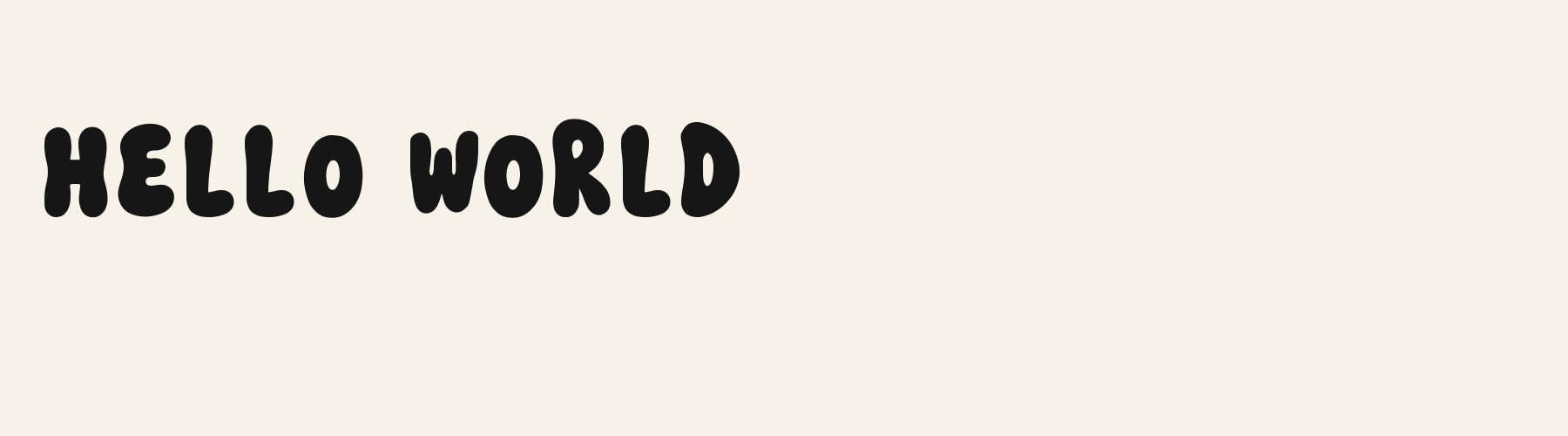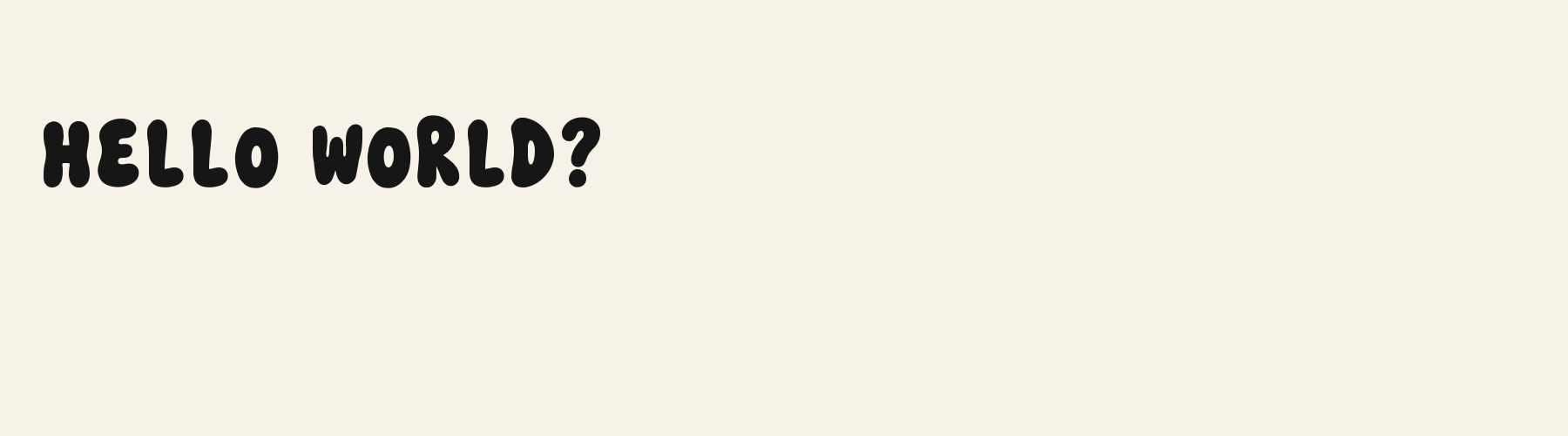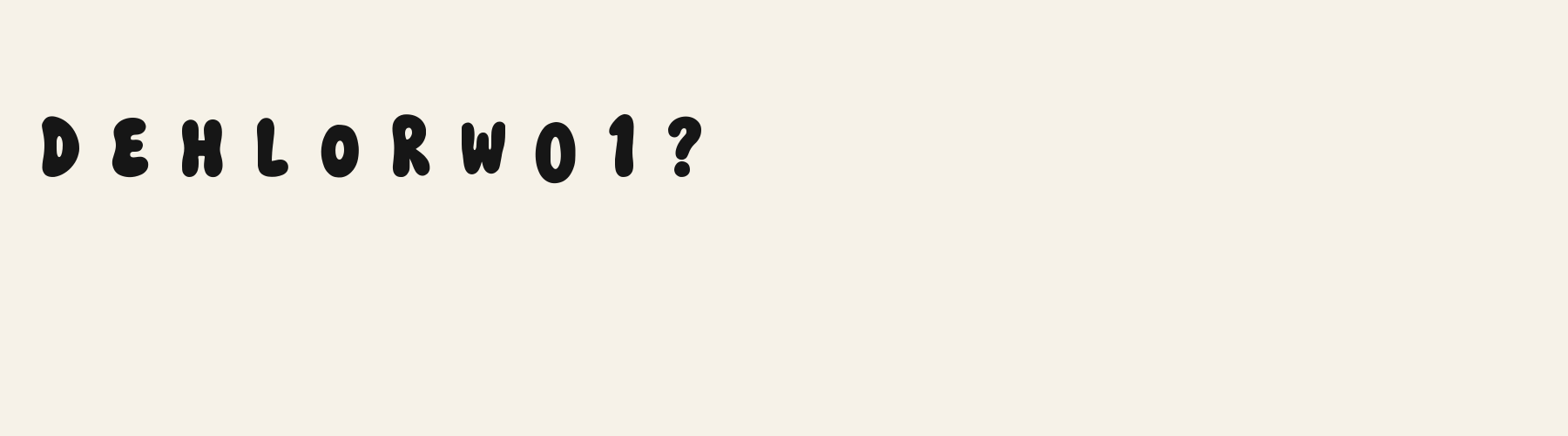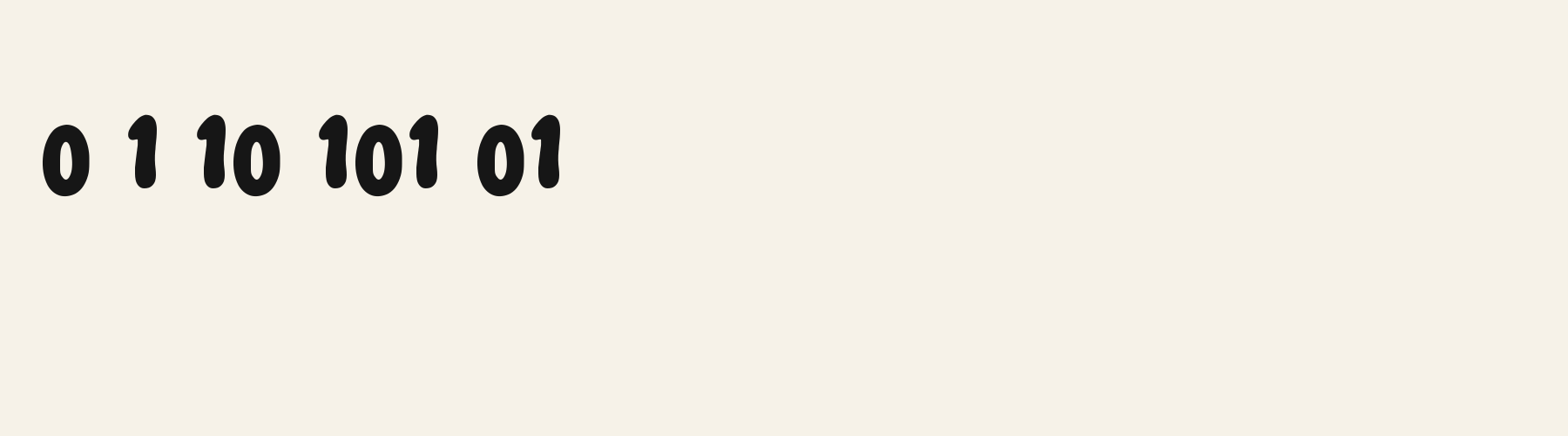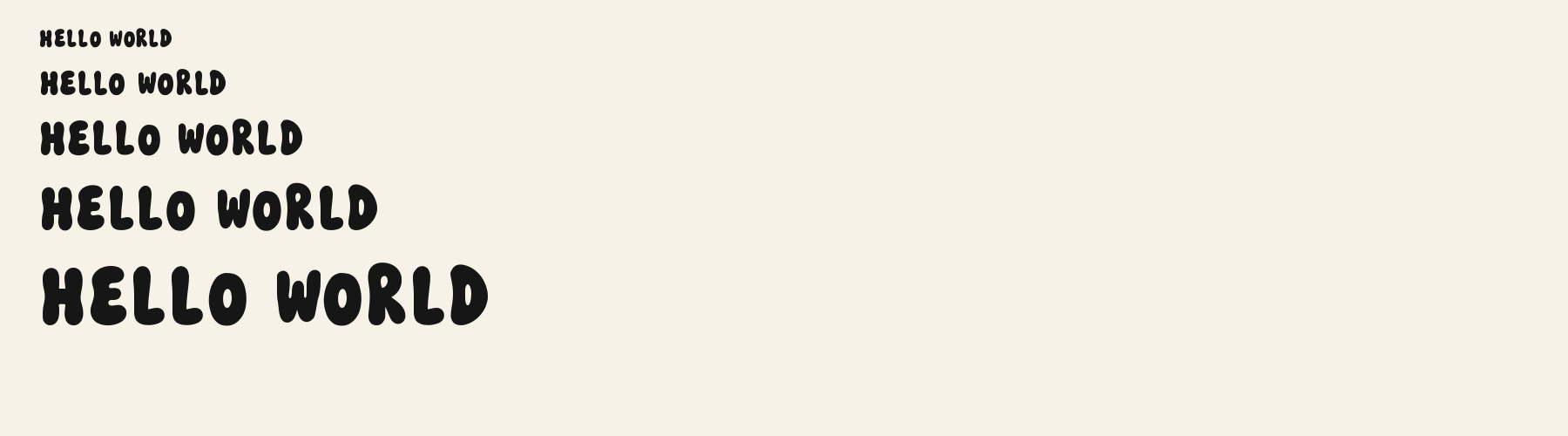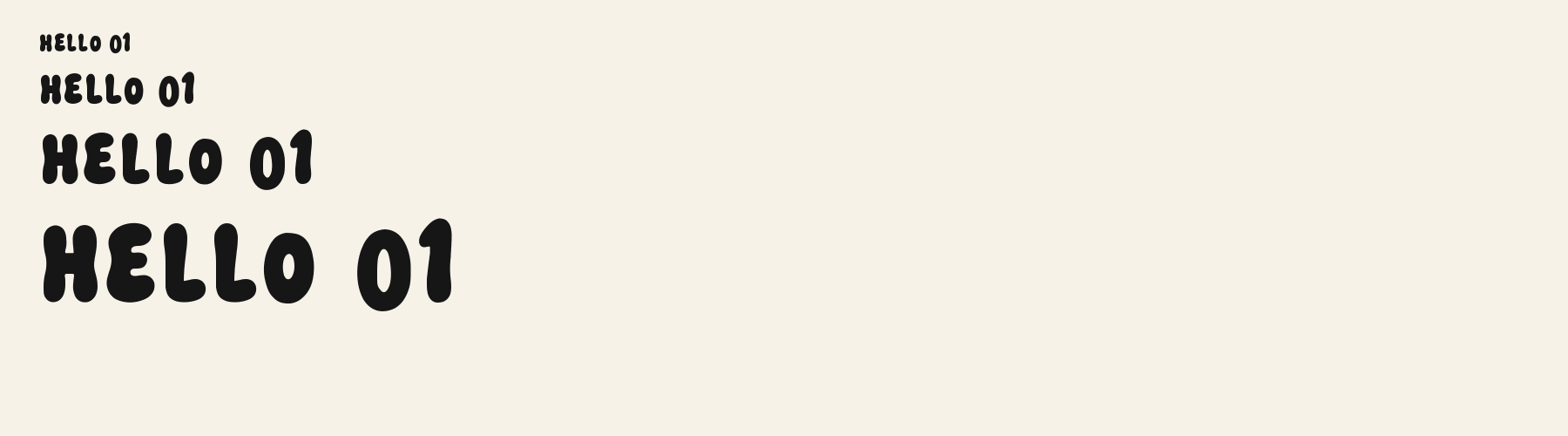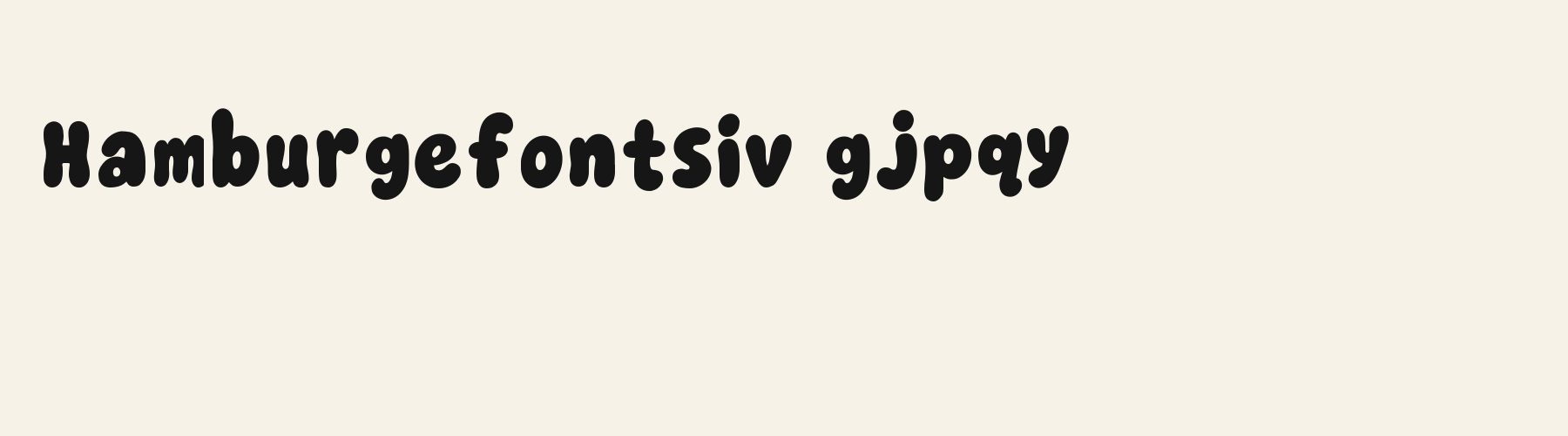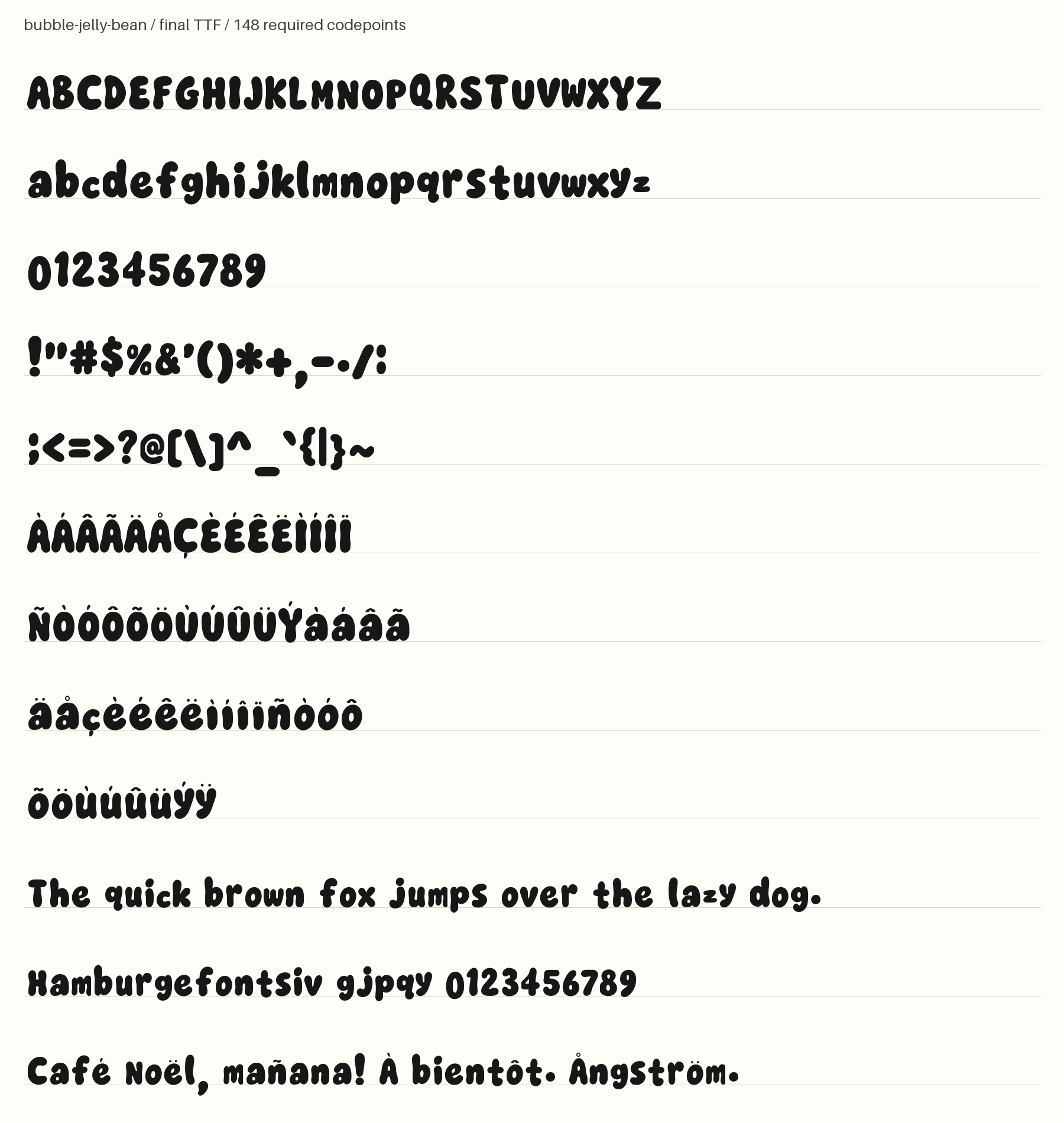
Cute Storybook Round
Bubble Jelly Bean is a candy packaging, birthday titles and playful children’s branding. rounded heavy strokes, tall proportions, open apertures and bouncy alternating widths. Best for candy packaging, birthday titles and playful children’s branding.
Includes all 95 printable Basic Latin characters and 148 glyphs in total.
Verified language coverage: English (Basic Latin)